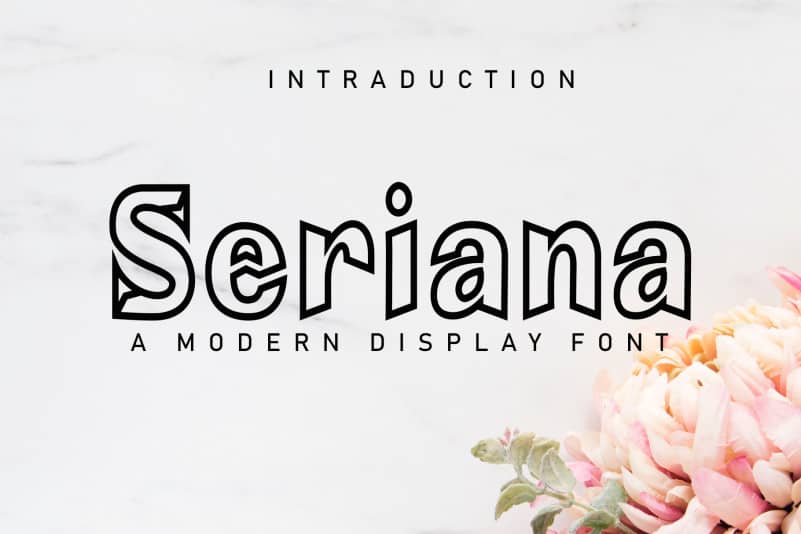
Sariana Display Font
Sariana Display Font simplifies elegance into one truly outstanding handwritten typeface. It maintains its classy calligraphic influences while feeling contemporary and fresh. Sariana Display Font versatility will appeal to a wide range of crafty ideas, from letterheads and titles, to stationery.
The outer lettering in the latest style is perfect for wall displays, wedding invitations, social media post logos,
advertisement, product packaging, product design, label, photography, watermark, invitation, writing tool, greeting card, and other designs that require a handwritten touch.